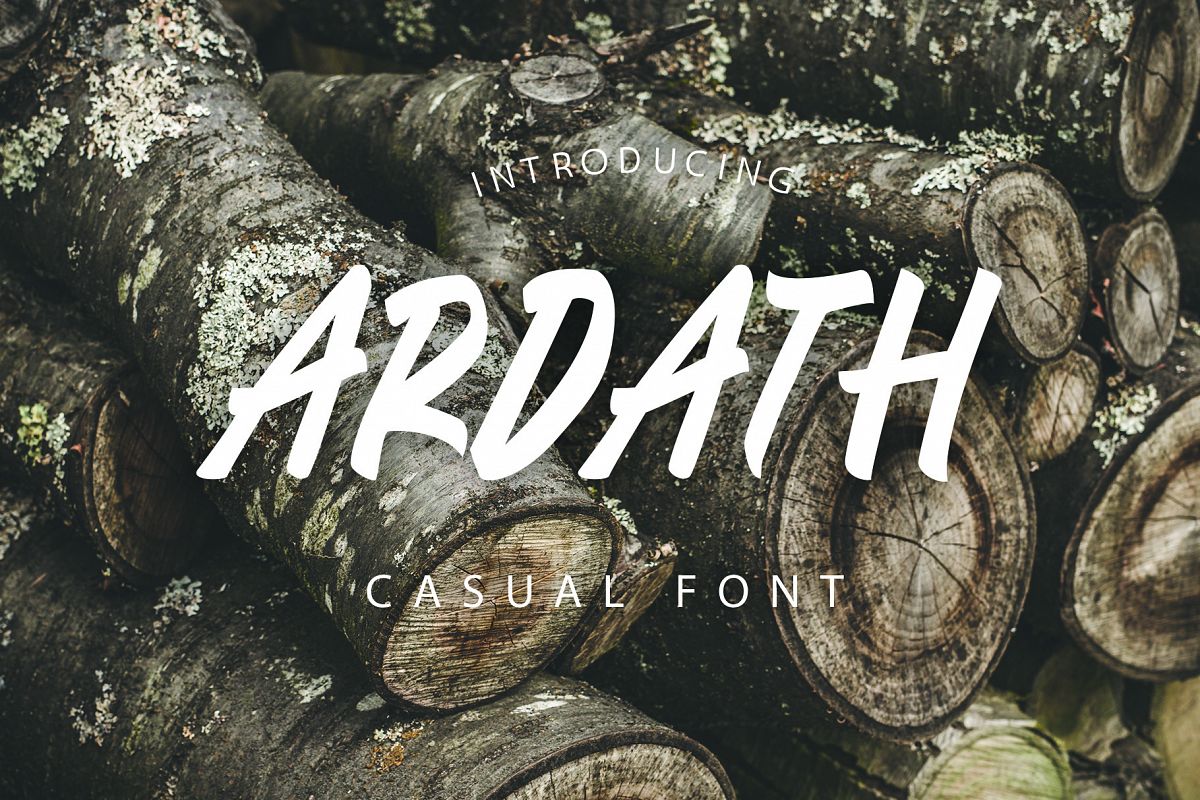
ARDATH Font
ARDATH-CasualFont
Say hello for ARDATH Casual Font! Best match for logos, header, titles, prints & other creative process possibilities.
Also you can get Numbering and Punctuation.
Create a extraordinary handstylish results by using ARDATH Font!